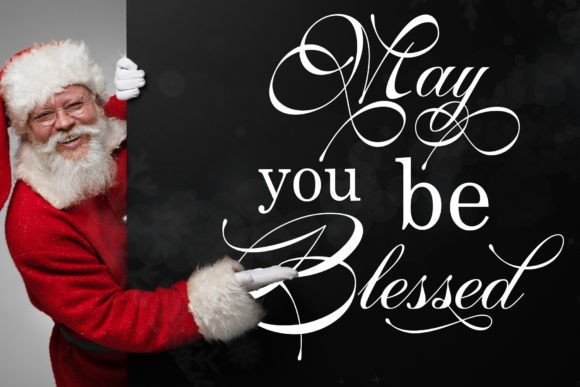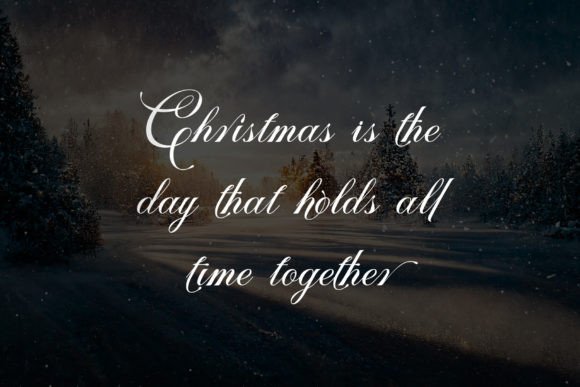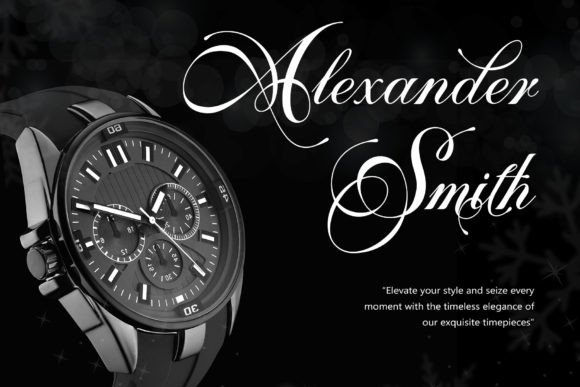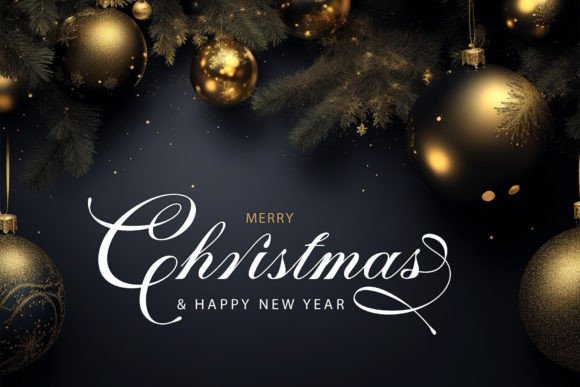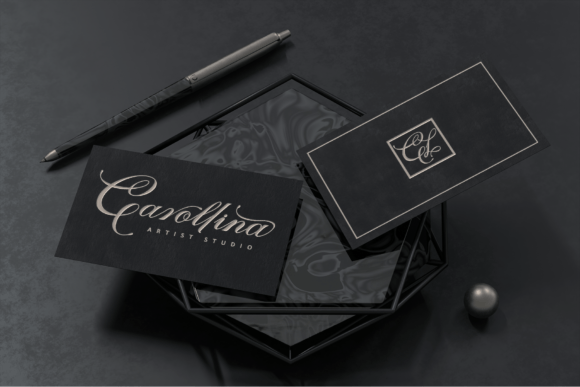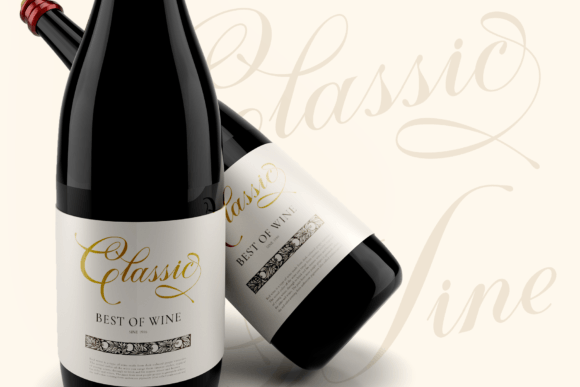
Step into the Enchanted World of Christmas Angely Font
As the holiday season approaches, designers and crafters are on the lookout for the perfect typography to add a touch of magic to their creations. Look no further than Christmas Angely, a captivating formal calligraphy font that embodies the essence of the festive season. With its elegant strokes and sophisticated charm, this font is sure to make every Christmas moment truly extraordinary.
The Perfect Blend of Glamour and Elegance
Christmas Angely is more than just a font – it’s an experience. Its formal calligraphy style exudes glamour and sophistication, making it perfect for designs that require a touch of luxury. Whether you’re creating holiday cards, gift tags, or festive posters, this font is sure to elevate your designs to new heights. The intricate details and flowing lines of Christmas Angely will transport your audience to a world of enchantment, making your creations truly unforgettable.
Unlock Endless Possibilities with PUA Encoding
One of the standout features of Christmas Angely is its PUA (Private Use Area) encoding. This means that the font includes a range of special characters and glyphs that can be used to add an extra layer of creativity to your designs. With PUA encoding, you can unlock the full potential of Christmas Angely and effortlessly enhance your creations. Whether you’re a seasoned designer or a crafty DIY enthusiast, this font is sure to become a favorite in your collection.
Why Designers and Crafters Love Christmas Angely
So, what makes Christmas Angely so special? Here are just a few reasons why designers and crafters are falling in love with this enchanting font:
- Elegant and sophisticated: Christmas Angely is the perfect choice for designs that require a touch of luxury and glamour.
- Versatile: This font can be used for a wide range of projects, from holiday cards and gift tags to festive posters and social media graphics.
- Easy to use: With PUA encoding, you can easily access the font’s special characters and glyphs, making it simple to enhance your designs.
- Unique: Christmas Angely is a one-of-a-kind font that will set your designs apart from the crowd.
Tips for Using Christmas Angely in Your Designs
To get the most out of Christmas Angely, here are a few tips to keep in mind:
- Pair with complementary fonts: Combine Christmas Angely with other fonts to create a unique and eye-catching design.
- Experiment with colors: Try out different colors and textures to add depth and interest to your designs.
- Don’t be afraid to get creative: With PUA encoding, you can push the boundaries of what’s possible with Christmas Angely and create truly unique designs.
Christmas Angely is a captivating formal calligraphy font that is sure to add a touch of magic to your designs. With its elegant strokes, sophisticated charm, and PUA encoding, this font is the perfect choice for designers and crafters who want to create truly extraordinary Christmas creations. So why wait? Step into the enchanted world of Christmas Angely and make every holiday moment truly special.
Get Ready to Make Your Designs Shine
With Christmas Angely, the possibilities are endless. Whether you’re creating holiday cards, gift tags, or festive posters, this font is sure to elevate your designs to new heights. So why not give it a try? Download Christmas Angely today and experience the magic of the holiday season in a whole new way.